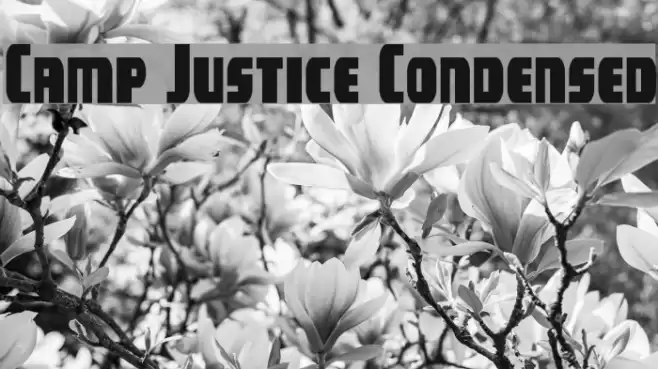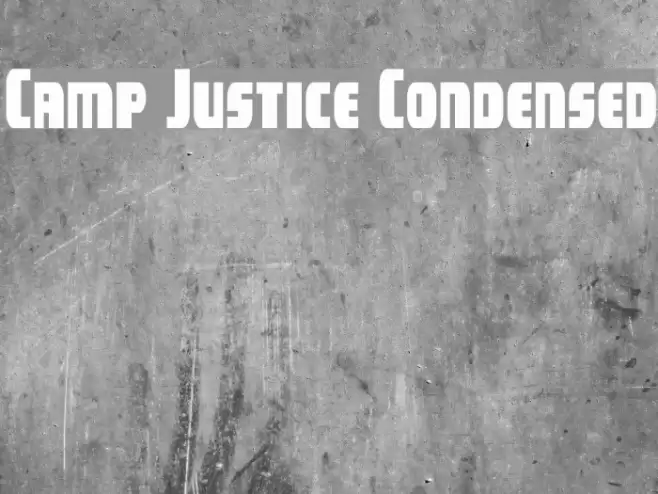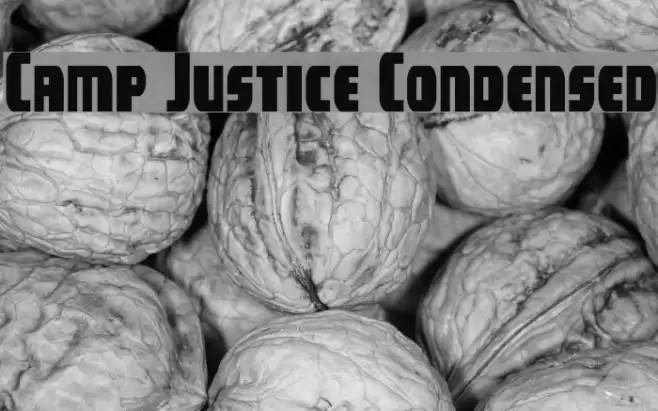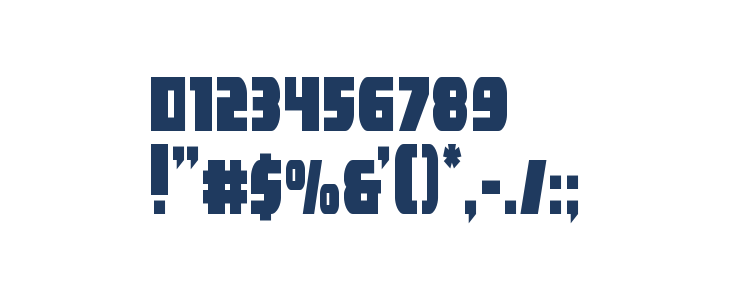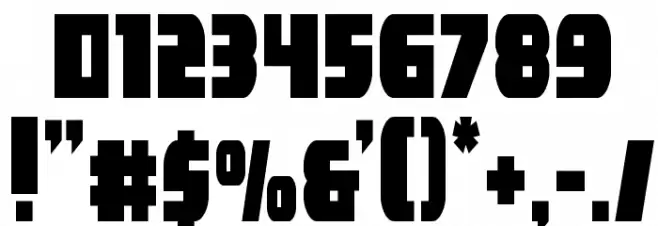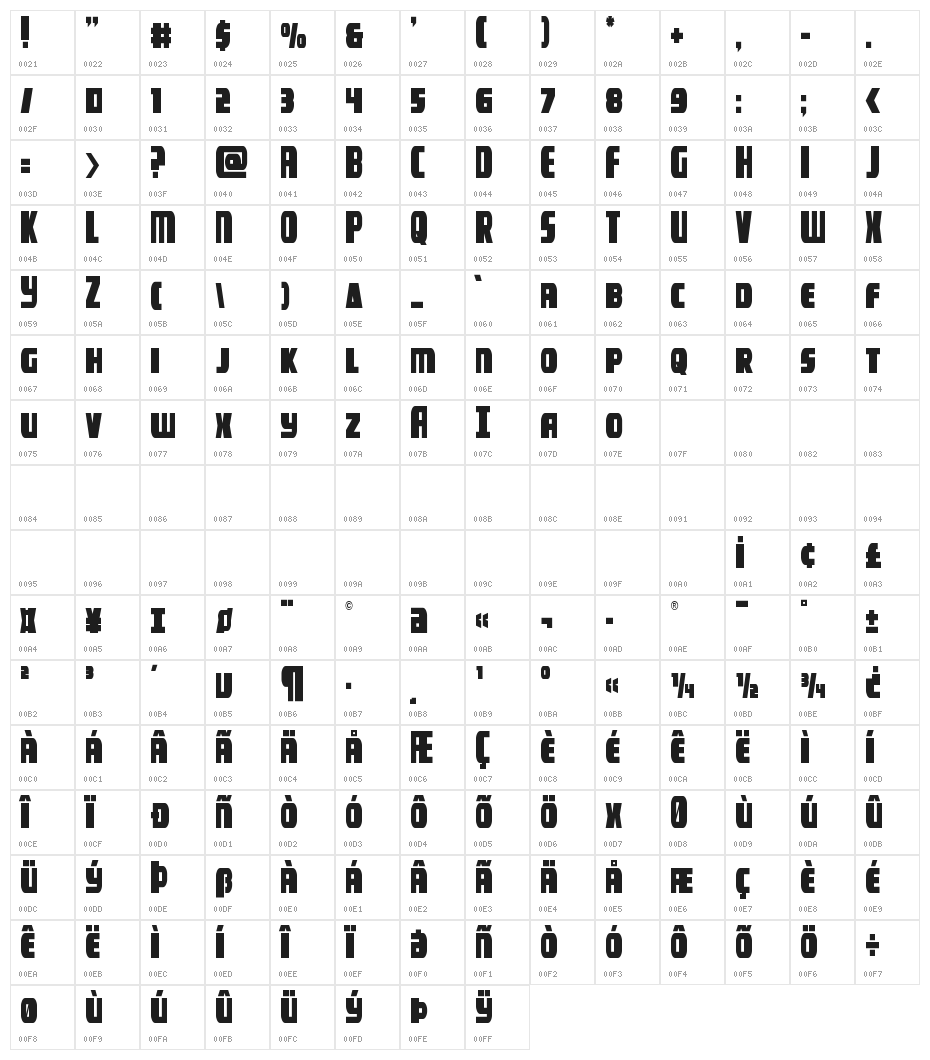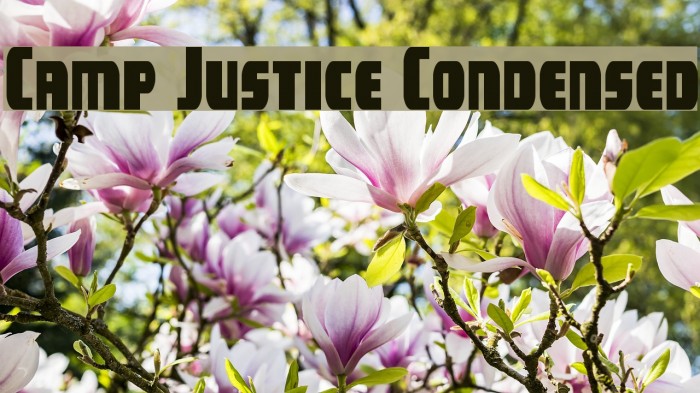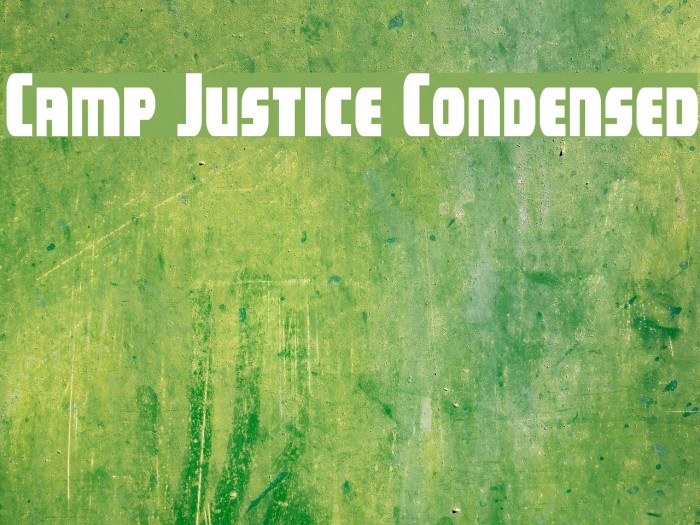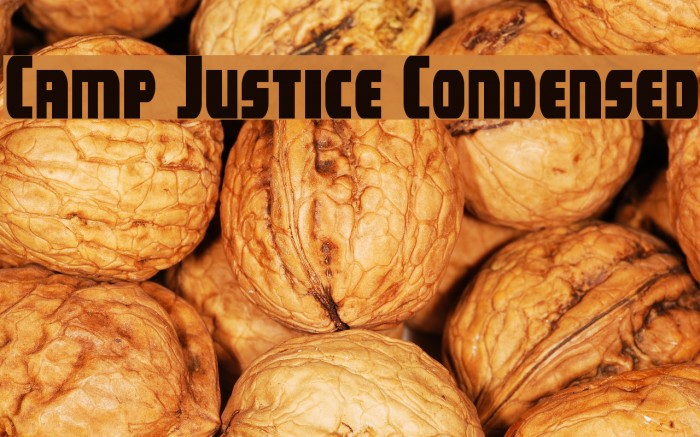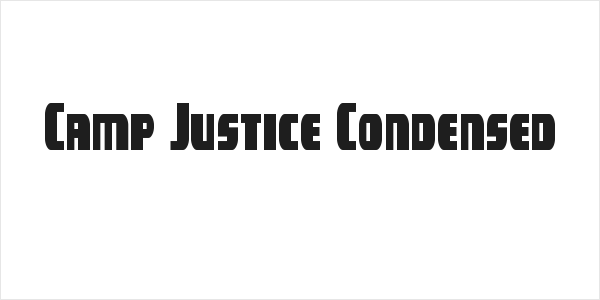
Camp Justice Condensed Font
Camp Justice Condensed Description
This font features a bold and impactful design with a condensed structure, making it ideal for attention-grabbing headlines and titles. The characters are uniformly thick, with a strong geometric influence that gives them a modern and assertive appearance. The uppercase letters are particularly striking, with sharp angles and a blocky aesthetic that conveys strength and stability. The numbers and special characters maintain this bold style, ensuring consistency across all elements. The font's condensed nature allows for efficient use of space without sacrificing readability.
A bold, condensed font with a modern, geometric style from Uncategorized fonts.
- Proposed Projects: Ideal for posters, banners, logos, and any project requiring a strong visual impact.
- Character Spacing: Tight